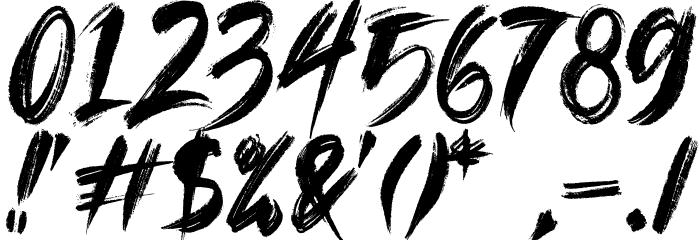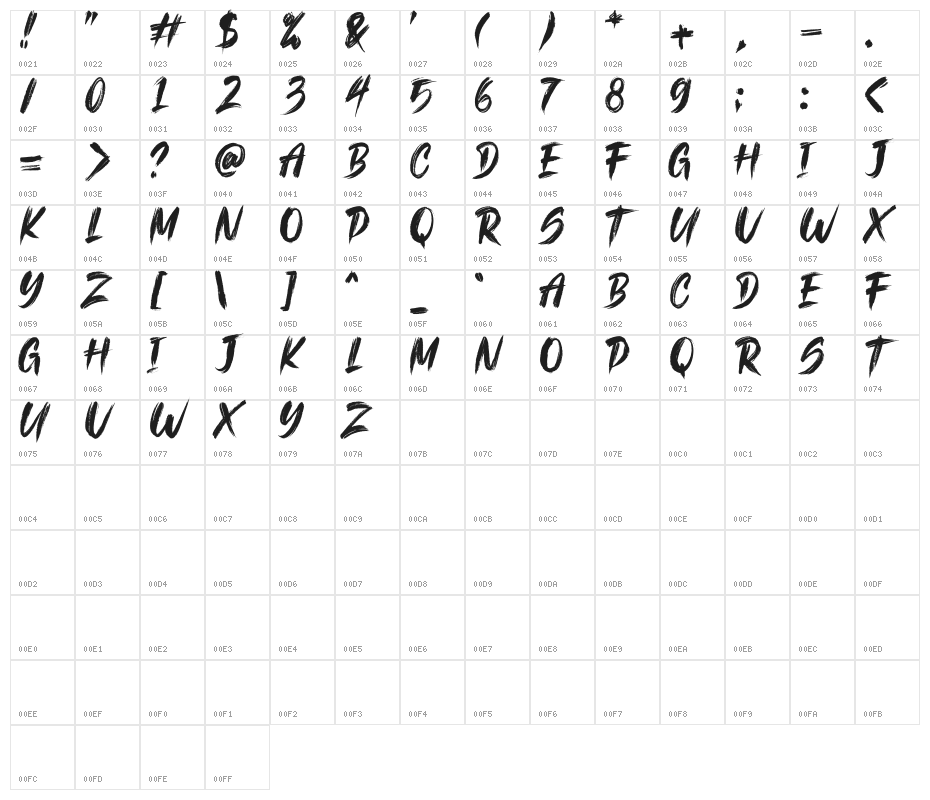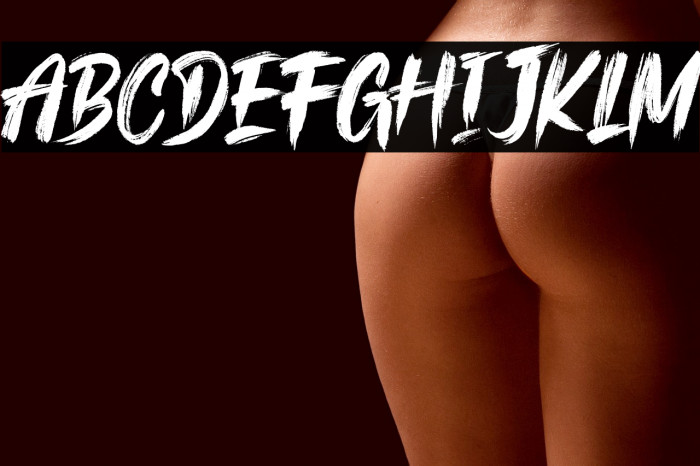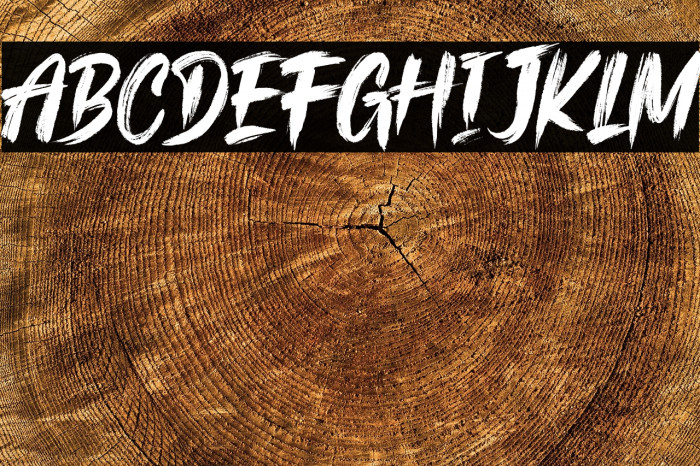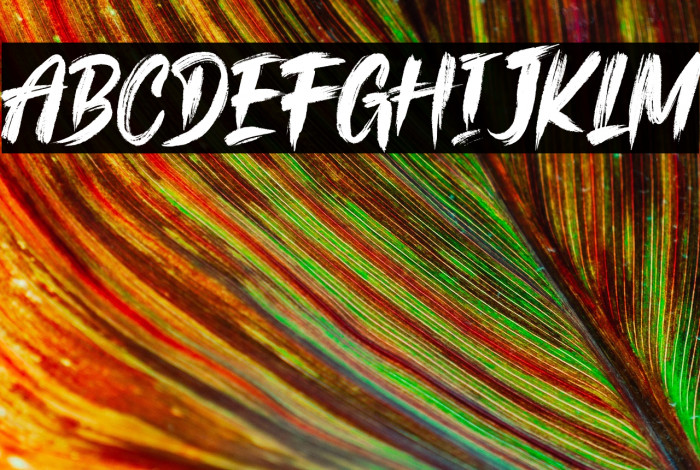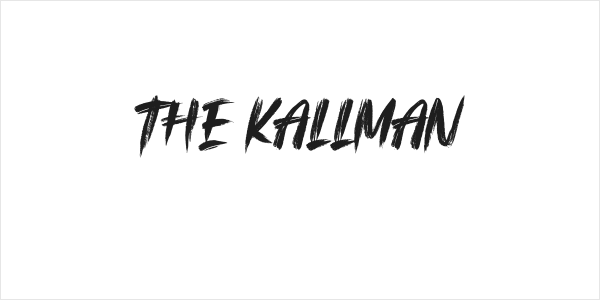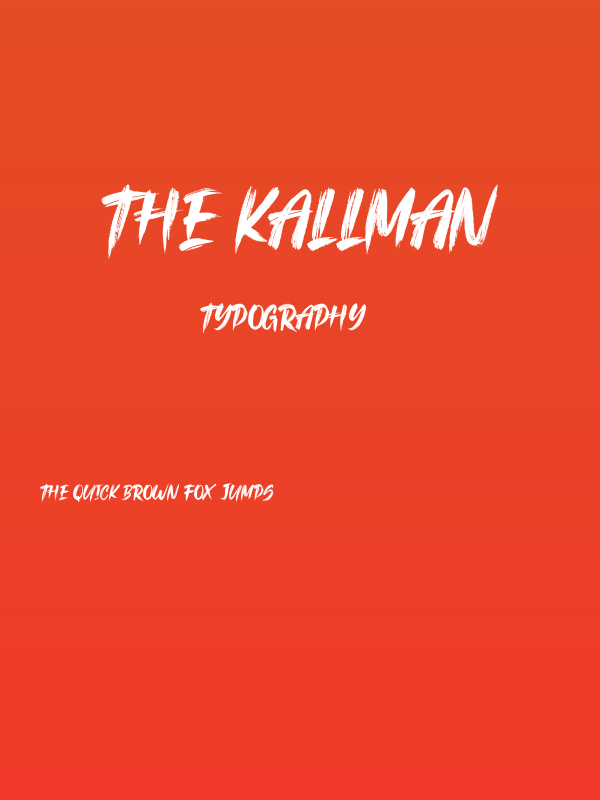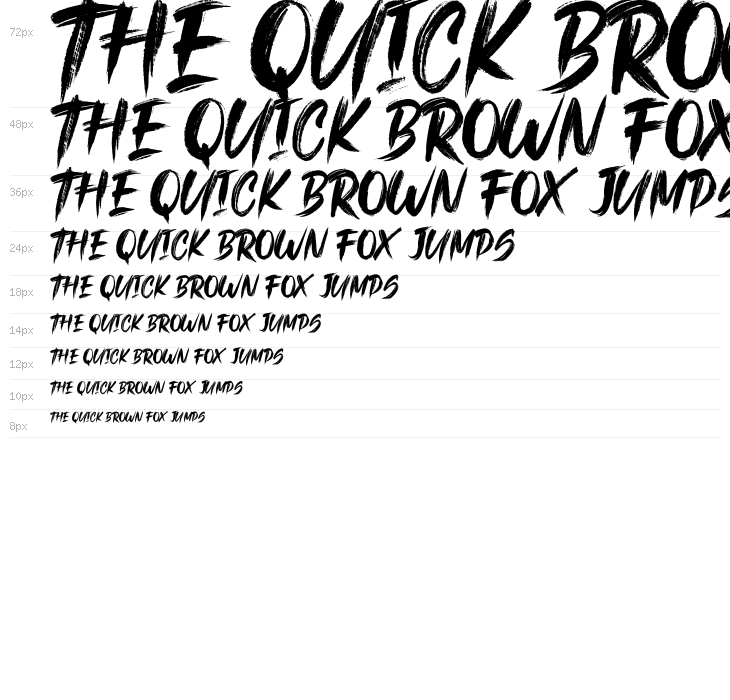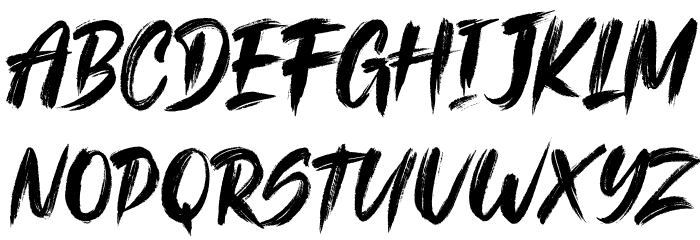
The Kallman Font
The Kallman Description
This font exudes a bold and dynamic brushstroke style, characterized by its energetic and expressive letterforms. The strokes are thick and uneven, giving it a hand-painted appearance that adds a sense of movement and vitality. Each character is unique, with varying angles and curves that contribute to its artistic flair. The uppercase and lowercase letters maintain a consistent style, while the numbers and special characters integrate seamlessly, enhancing its versatility. This font is ideal for projects that require a strong visual impact and a creative touch.